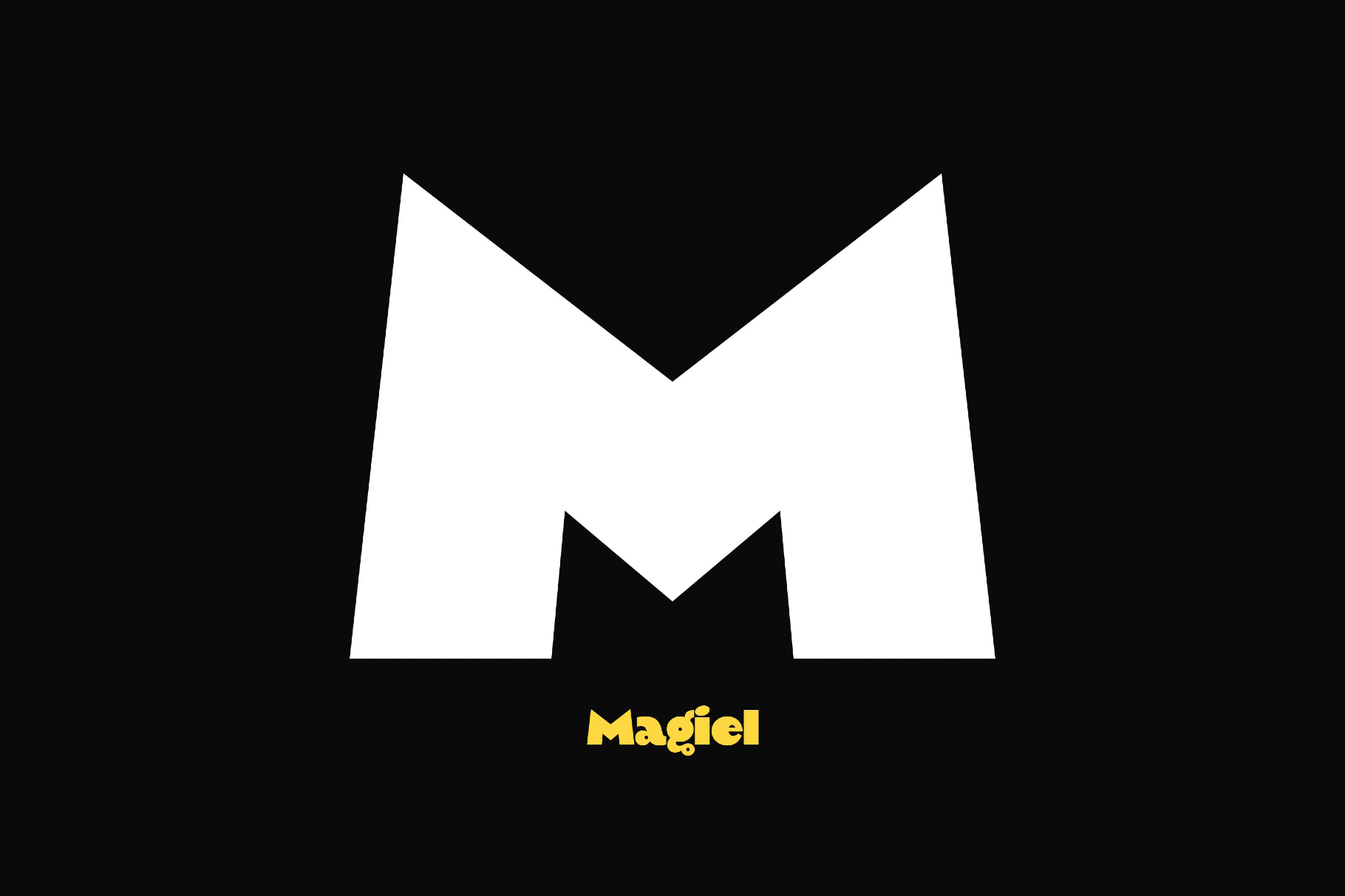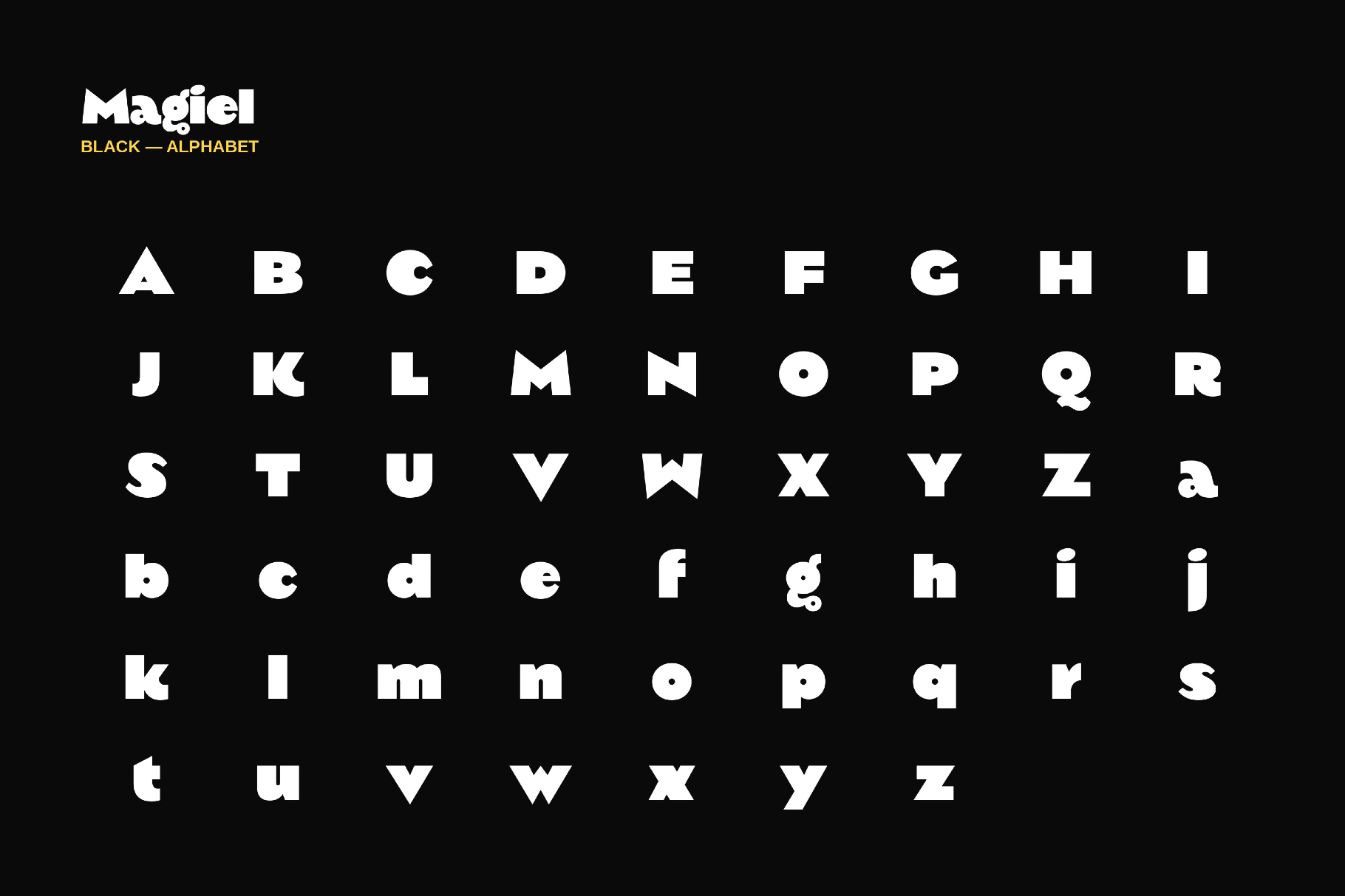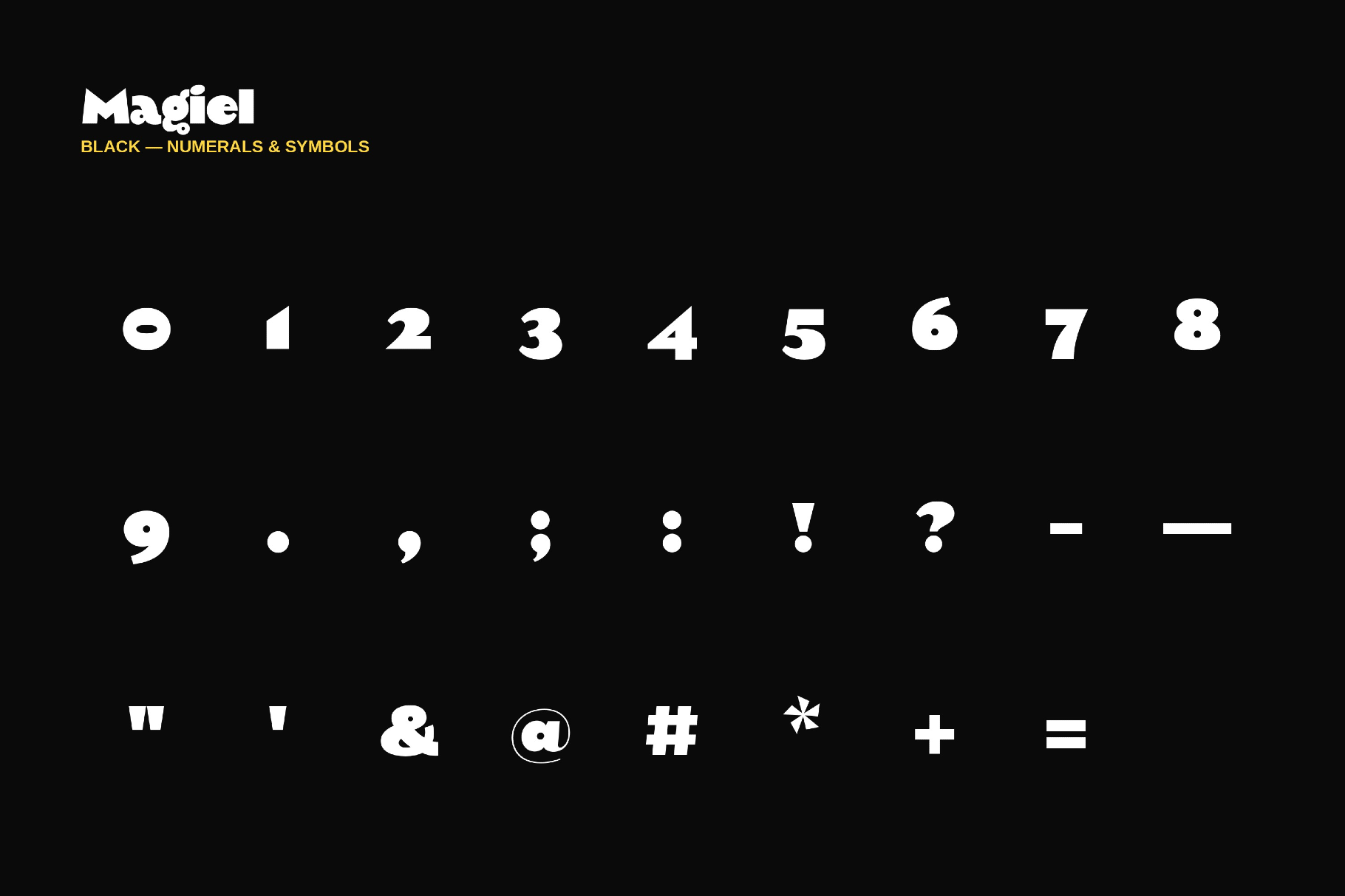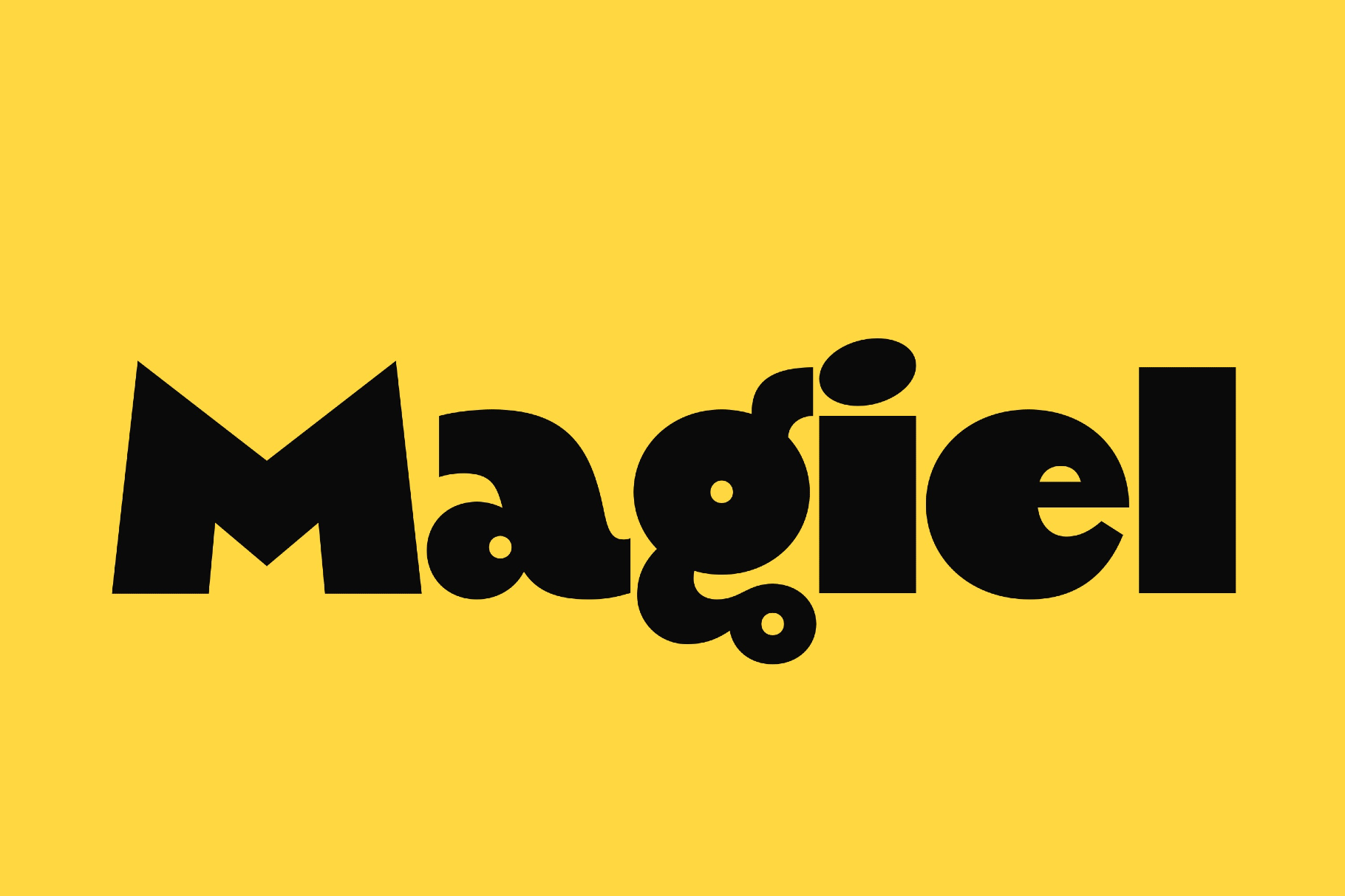
Magiel - Bold Cartoon Font
Magiel-Black
Playful serif forms of Magiel twist into an eccentric storybook style, shaped by curled terminals, decorative contrast, and a hand-lettered rhythm. The mood points to Art Nouveau storefronts, folk-tale chapter headings, and illustrated market signs.
This bold groovy font fits boutique logos, café menus, children’s book titles, craft packaging, greeting cards, festival posters, artisan labels, bakery branding, editorial headers, and social media graphics.
- uppercase and lowercase letters;
- numbers, punctuation, and symbols;